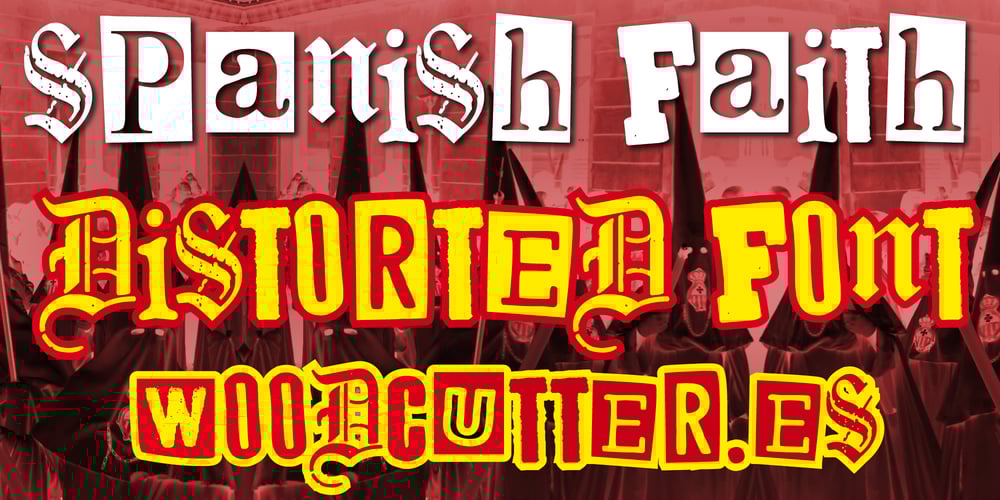
Spanish Faith Font Family was designed by Jordi Manero and published by Woodcutter. Spanish Faith contains 1 styles and family package options. “Spanish Faith” is a font that fuses the rebellious spirit of punk with a touch of elegance. Each letter is distinct and distorted, creating a sense of orderly chaos that captures the essence of counterculture. With accents included, this font offers versatility and authenticity in every stroke. Ideal for projects that require a bold statement and an unmistakable style, “Spanish Faith” balances the elegant and the chaotic, providing a unique and provocative look that stands out in any design.